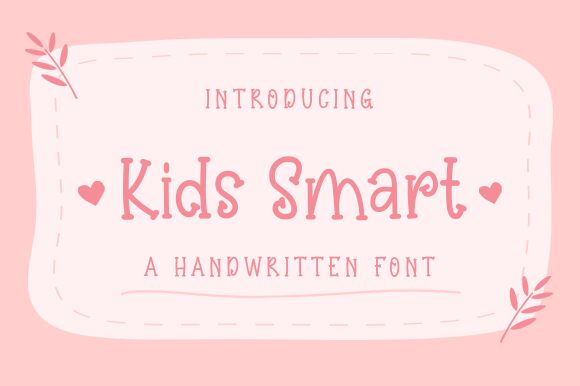
Kids Smart, designed by Nirmala Creative, is a playful and whimsical display font that instantly evokes a sense of joy and creativity. With its curly style, each character frolics on the page, suggesting fun and movement that could bring any message to life with a light-hearted touch. This font's charming quirks are sure to captivate audiences in settings where warmth and friendliness are key.
The delightful curls make Kids Smart perfect for projects targeting younger audiences, such as children's books, playful branding, educational materials, or any design that aims to communicate with a gentle and engaging tone. Its unique style ensures that it stands out in casual contexts while maintaining readability and an inviting aesthetic.